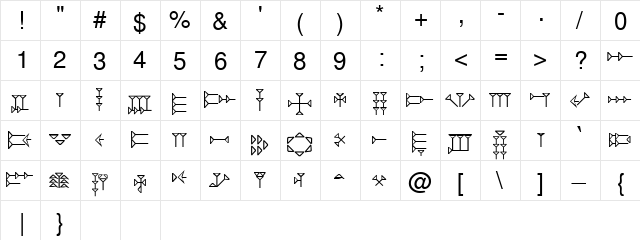
UgariticSSK Regular Font Preview
UgariticSSK Regular
UgariticSSK Regular Font Details
Design Context for UgariticSSK Typeface
UgariticSSK offers clean, dependable letterforms without strong stylistic allegiance, making it a practical choice for designers who need flexibility.